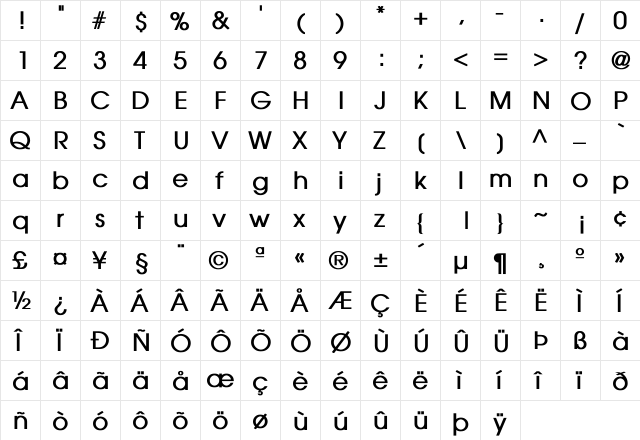
AvantGarde-Book Bold Bold
Design Context for AvantGarde-Book Bold Typeface
AvantGarde-Book Bold offers clean, dependable letterforms without strong stylistic allegiance, making it a practical choice for designers who need flexibility. The heavy weight commands attention and anchors typographic hierarchies.